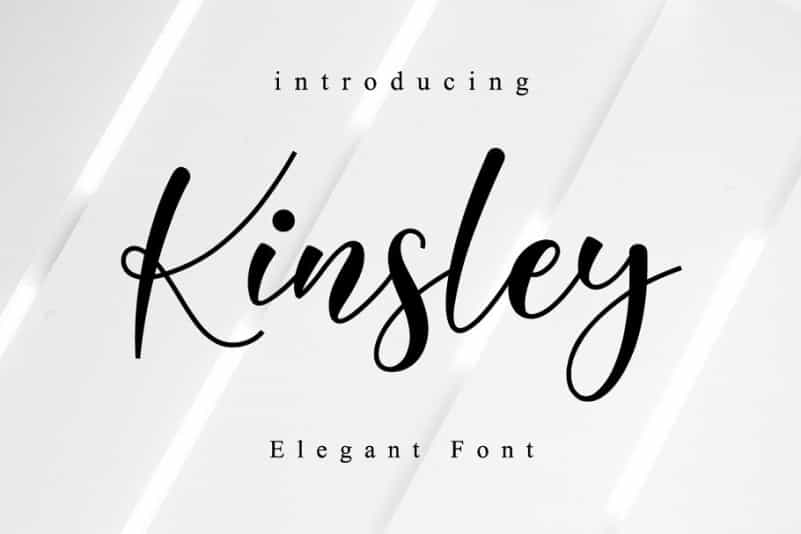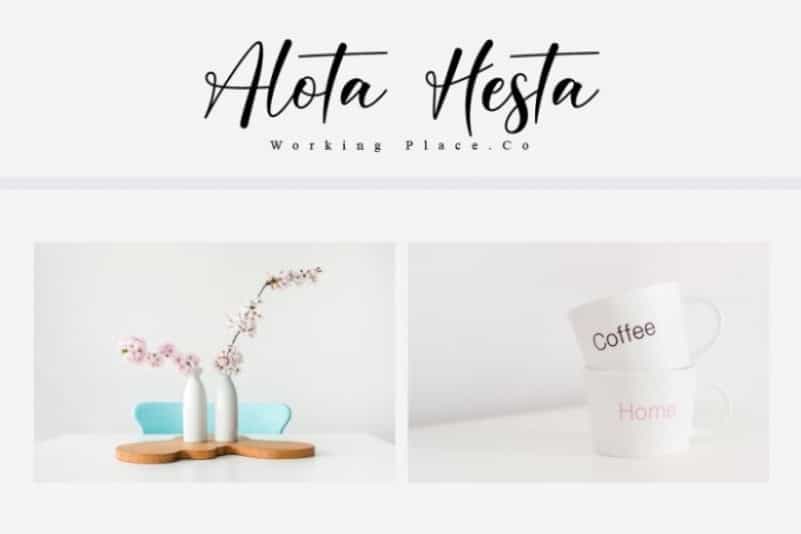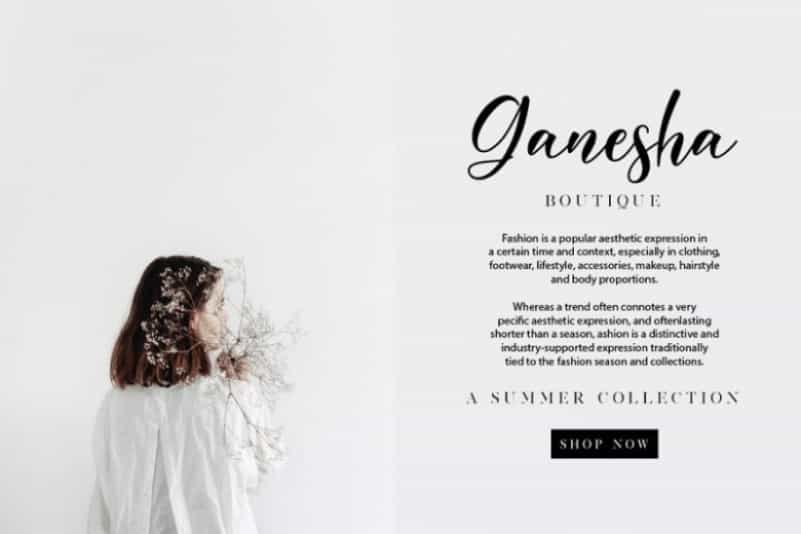
Kinsley Font is characterized by the sophisticated, elegant, classy and modern handwriting. A little bit dirty curvature and the typography of new trends are what this font is made from, which will give you a design that looks fresh and modern.